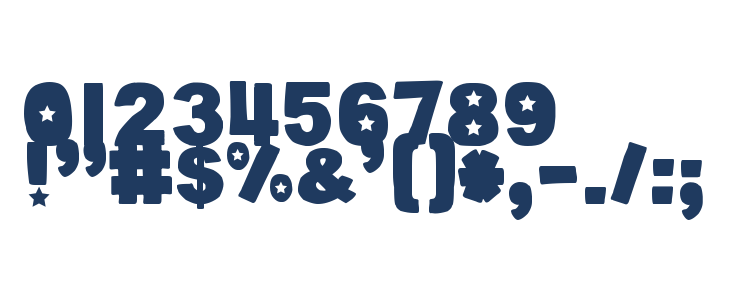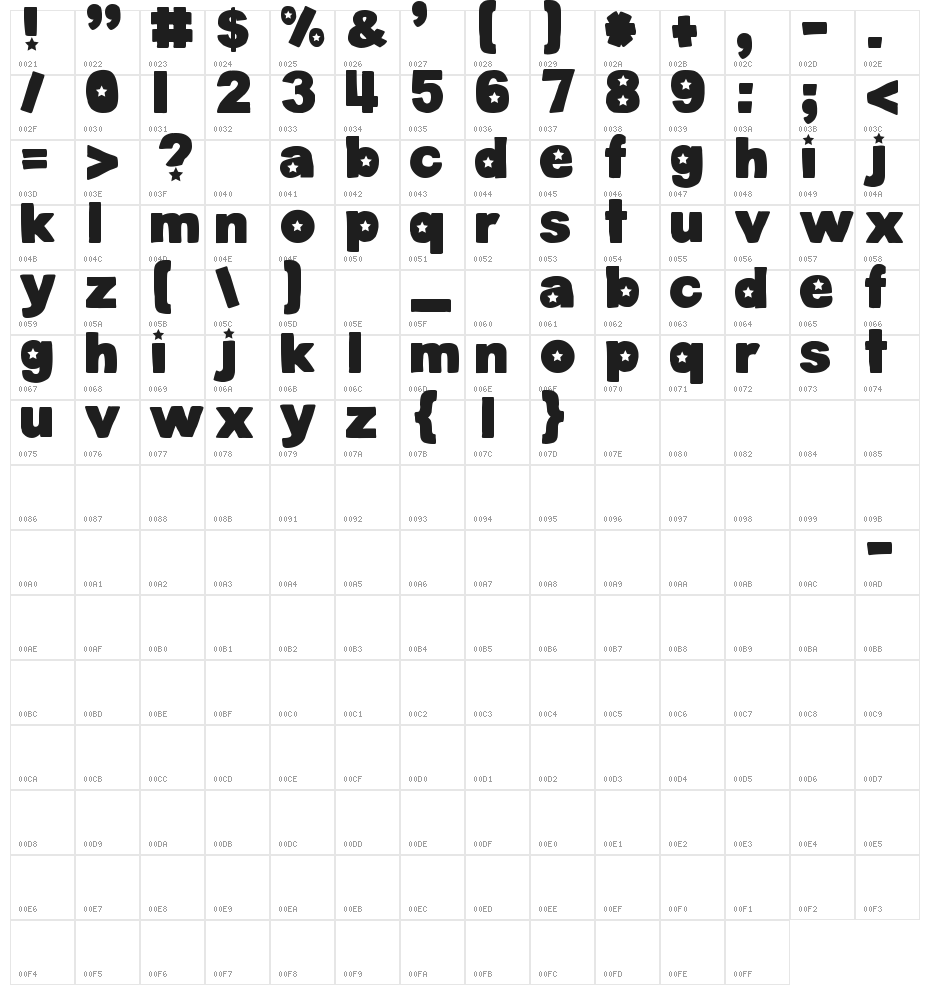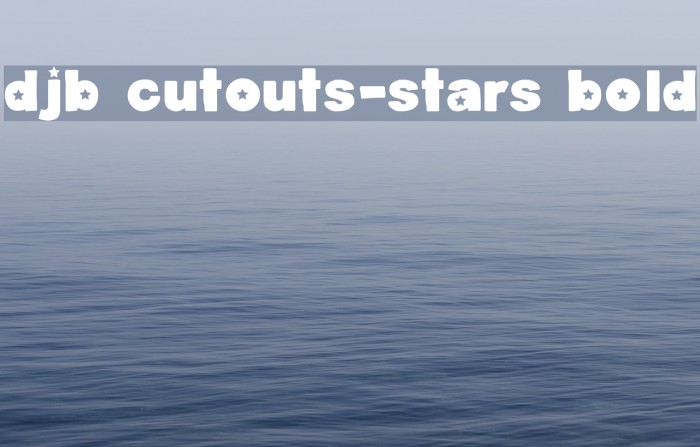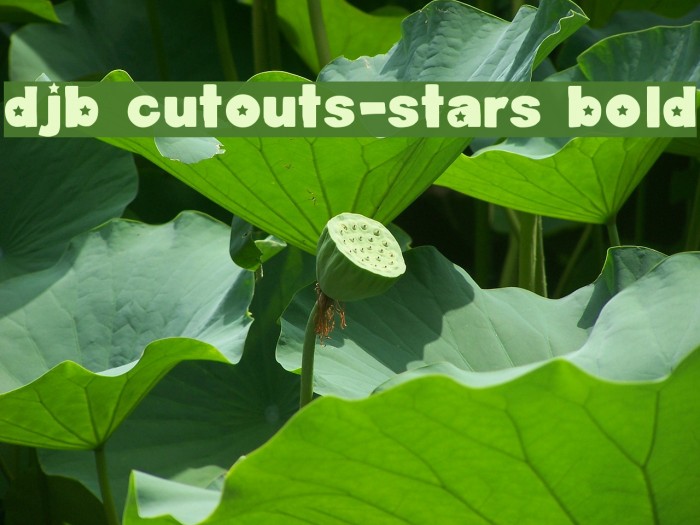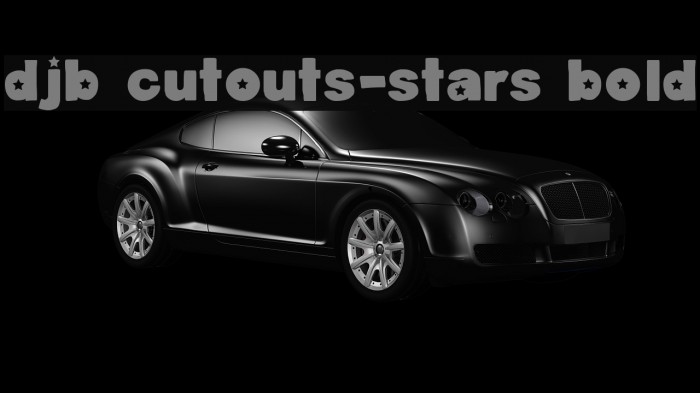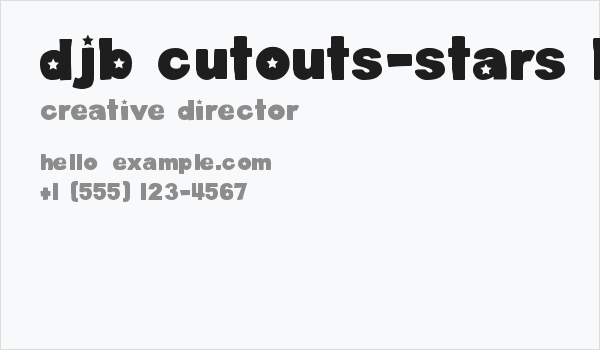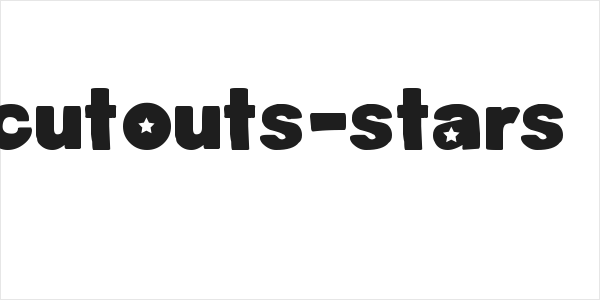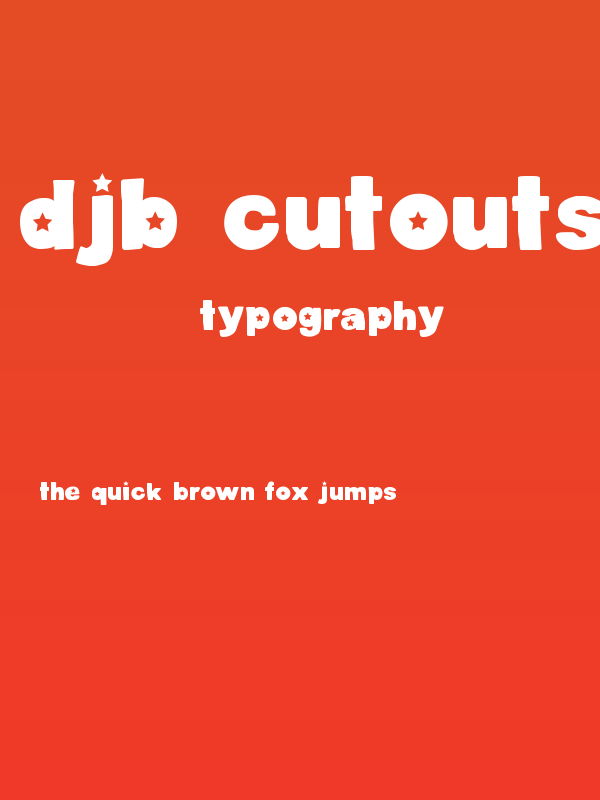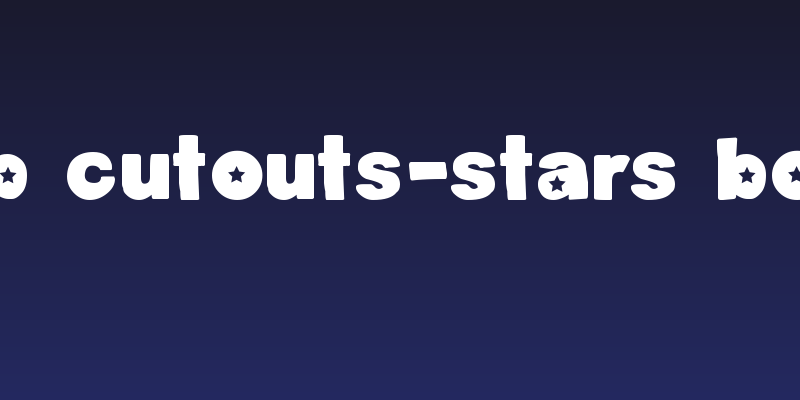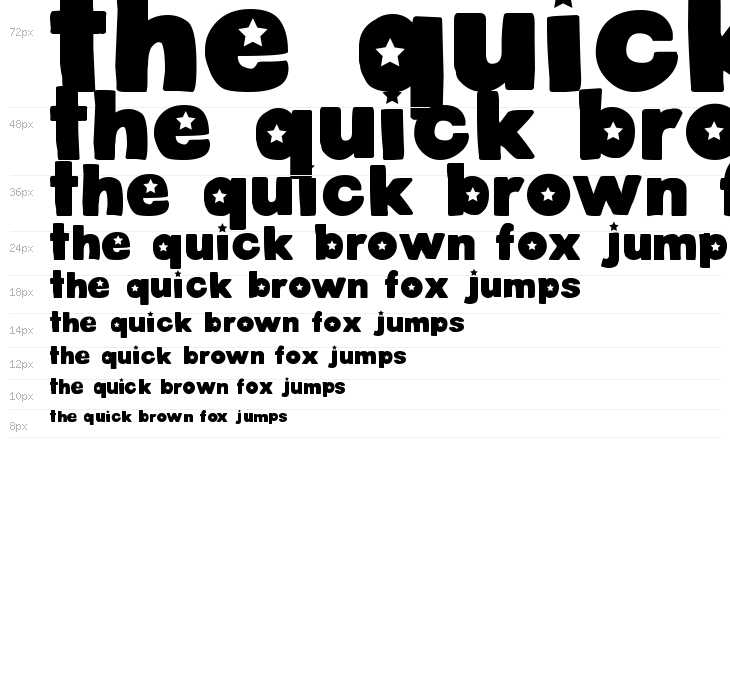
DJB Cutouts-Stars Bold Font
DJB Cutouts-Stars Bold Description
This playful and bold font features a unique design where each character is adorned with star cutouts, adding a whimsical and decorative touch. The letters are thick and rounded, giving them a friendly and approachable appearance. The stars are strategically placed within the characters, creating a fun and eye-catching effect. This font is perfect for projects that require a touch of creativity and playfulness, such as children's books, party invitations, or any design that aims to capture attention with its bold and decorative style.
| Overall Style | Playful, Decorative |
| Proposed Projects | Ideal for children's books, party invitations, playful branding, and eye-catching posters. |